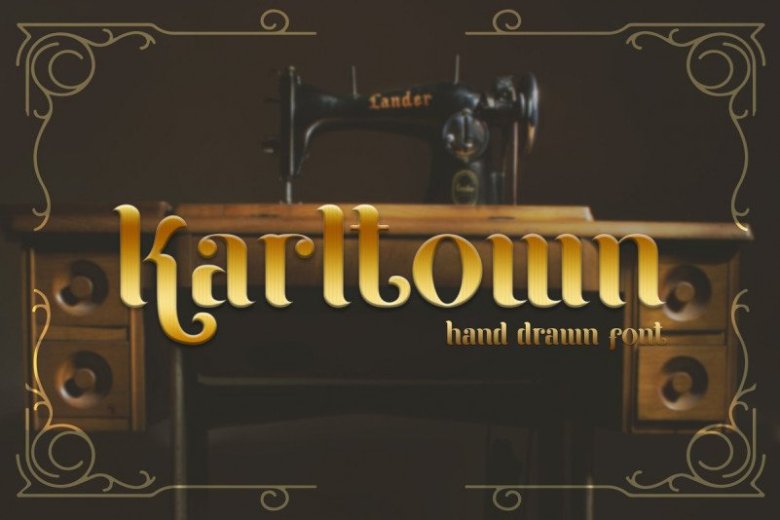
Karltown Display Font
Thank you for looking Karltown font. This is a strong serif font with medium contrast. Carefully designed with a short ascender to give a solid look, also the sharp serif makes the letters look more strong. It is designed and shared by
StringLabs. It’s a handdrawn font that we made with excellent taste. We combine ethnic and cultural elements in each of the glyphs. This font is suitable for those of you who like traditional arts and culture, besides this font is also suitable for those of you who have a shoe, fabric, clothing, fashion, and also jeans business. It’s perfect for your brand!